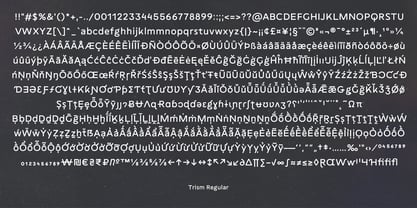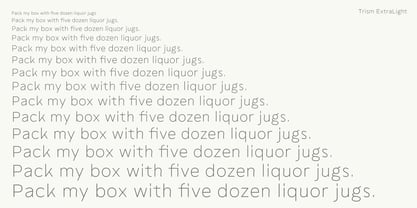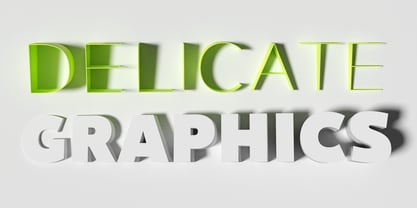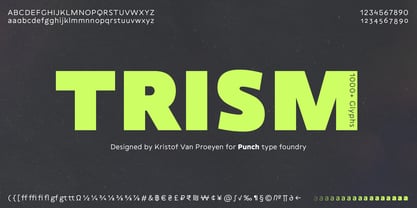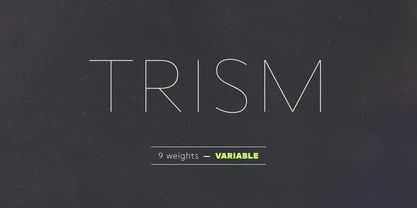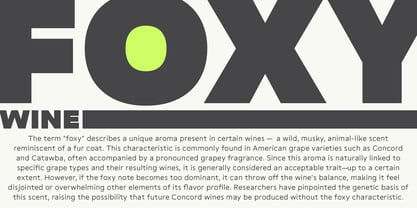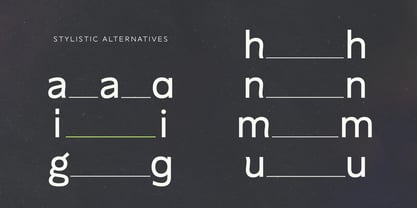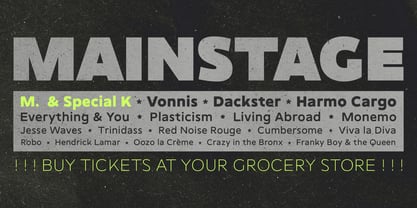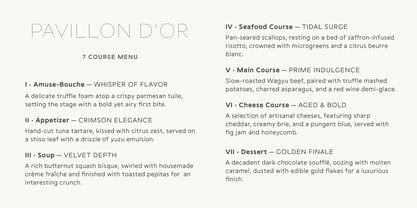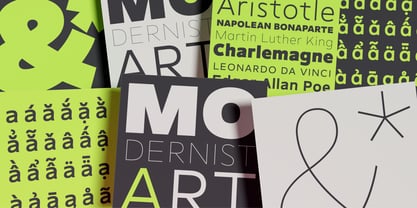
Trism
A família de fontes Trism foi desenhada por Kristof Van Proeyen e publicada pela Punch. Trism contém 10 estilos e opções de pacote familiar.
Trism is a balance of text, rhythm, and light. Designed with spacious clarity and a contemporary edge, this sans-serif family offers 9 distinct styles or the flexibility of a variable font, allowing seamless adaptation across the weights that you need in your designs.
At its core, Trism is built for fluid readability and visual impact, with the added versatility of subtle flared stems for a touch of elegance—or a sleek, straight-stem alternative for a sharper, modern aesthetic. Whether in motion or at rest, Trism brings structure, rhythm, and brilliance to any design. Define your voice, explore your "TextPrism" with Trism.